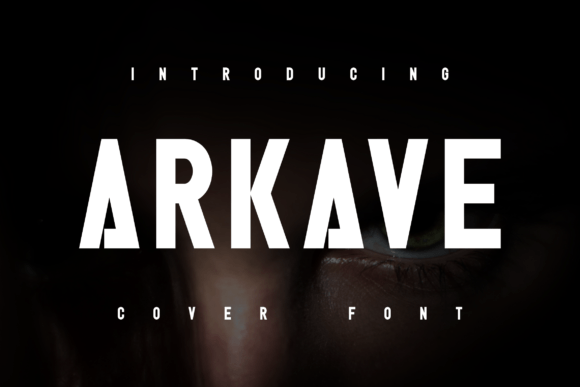
Introducing Arkave Font, the epitome of sophistication and elegance in the realm of typography. This sans-serif typeface, meticulously crafted by the skilled artisans at Wontenart, is a symphony of clean lines, graceful curves, and unwavering boldness. Its versatility knows no bounds, making it the perfect choice for a diverse array of creative endeavors.
With Arkave Font, your business flyers will transcend the ordinary and soar to new heights of professionalism. Its striking presence commands attention, ensuring that your message resonates with clarity and impact. Craft wedding invitations that exude timeless charm, each letter a testament to the love and joy of the occasion. Let your stationary art blossom into a masterpiece, where every word dances with elegance and grace.
Unleash your creativity on social media with eye-catching posts that captivate and engage your audience. Arkave Font's innate ability to elevate your content will make your brand shine brighter than ever before. Whether you're a seasoned designer or just starting your creative journey, Arkave Font is your trusted companion, ready to transform your ideas into stunning realities.
Step into a world of endless possibilities with Arkave Font. Its versatility extends far beyond the confines of business flyers, wedding invitations, and social media posts. Let your imagination run wild as you create logos that radiate power and sophistication, branding materials that exude confidence and authority, and marketing campaigns that leave a lasting impression.
Arkave Font is more than just a font; it's an investment in your creative endeavors. Its timeless appeal ensures that your designs will remain relevant and captivating for years to come. Embrace the beauty of Arkave Font and watch as your creative dreams take flight.